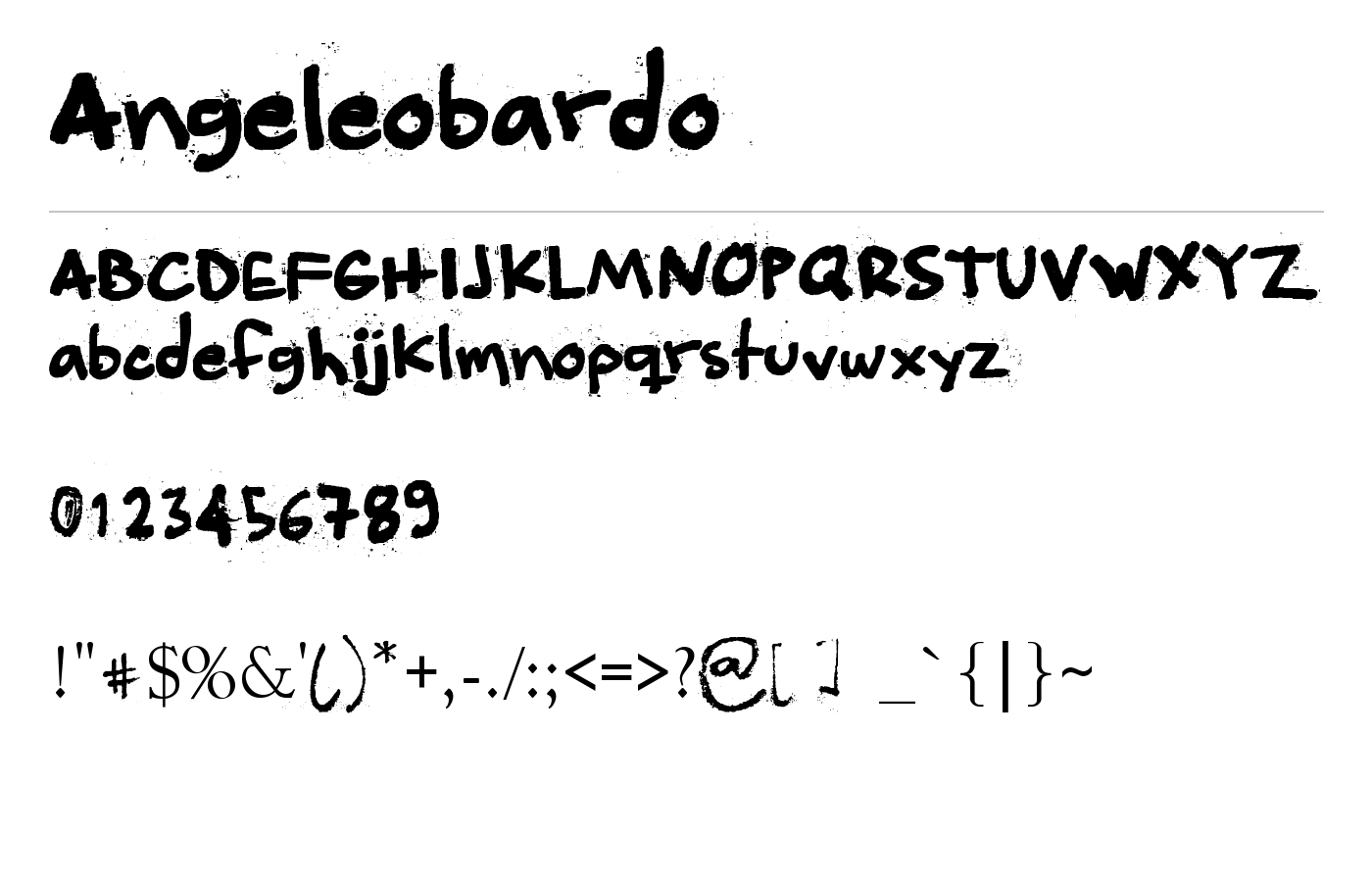
Angeleobardo is a bold, hand-drawn sans serif font with a rough, textured appearance that gives it a casual and expressive feel. Its irregular strokes and playful shapes create an organic, artistic vibe, making it ideal for creative projects, posters, and branding that wants to convey originality and a personal touch. This font works best in headlines or designs needing a distinctive, informal character with strong visual impact.
Angeleobardo Font
About Angeleobardo Font